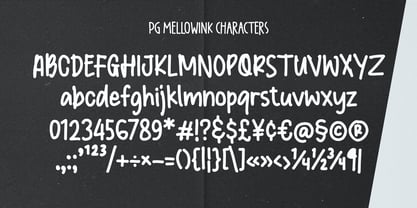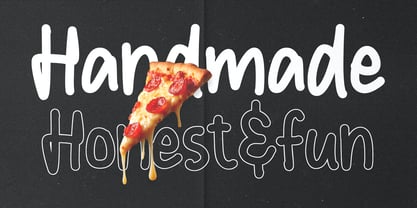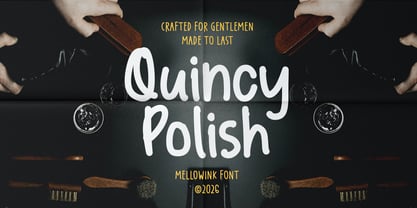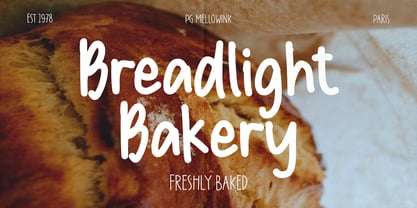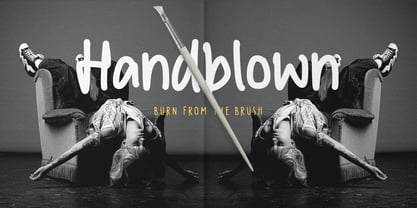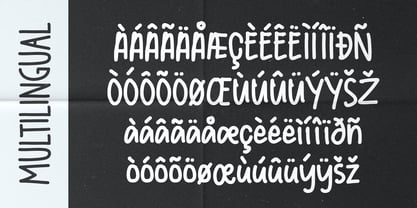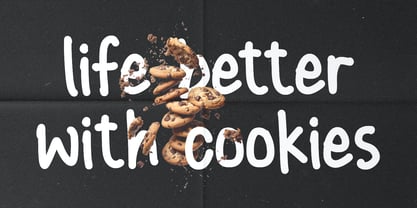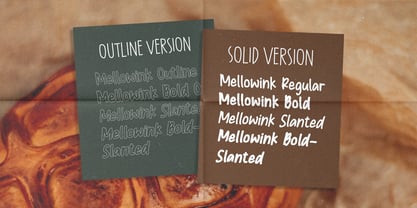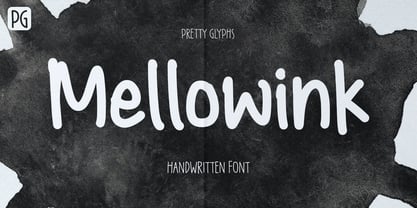
PG Mellowink
The PG Mellowink Font Family was designed by Ulfa Tiara Putri and published by Pretty Glyphs. PG Mellowink contains 8 styles and family package options. More about this family
PG Mellowink is a modern handwritten font crafted to bring a natural, stylish, and effortlessly personal feel to your designs. Inspired by authentic hand lettering, it blends clean strokes with a smooth flowing rhythm, creating typography that feels warm, confident, and modern at the same time.
Designed with versatility in mind, PG Mellowink includes 8 carefully crafted styles featuring Regular, Bold, and Slanted variations that work beautifully together for dynamic and expressive typography combinations. Every style maintains a cohesive handwritten character while offering the flexibility needed for standout creative layouts.
Perfect for branding, logos, social media posts, packaging, quotes, posters, invitations, beauty products, fashion projects, and DIY creations, PG Mellowink delivers a friendly handwritten aesthetic that feels both approachable and professional. Its balanced readability and organic personality make it ideal for creators who want designs that look authentic, modern, and visually engaging.
Whether you’re building a bold brand identity or adding a soft personal touch to your work, PG Mellowink helps your typography feel more alive, expressive, and memorable.